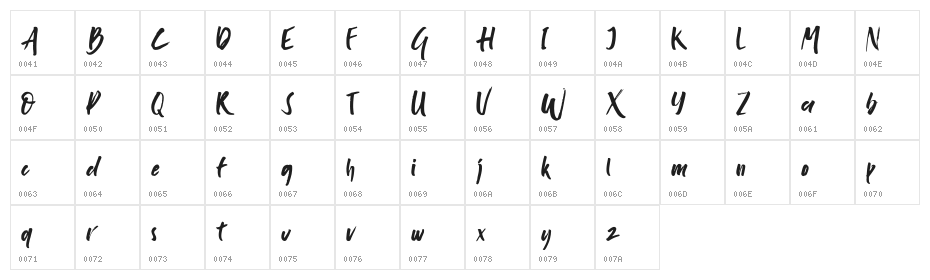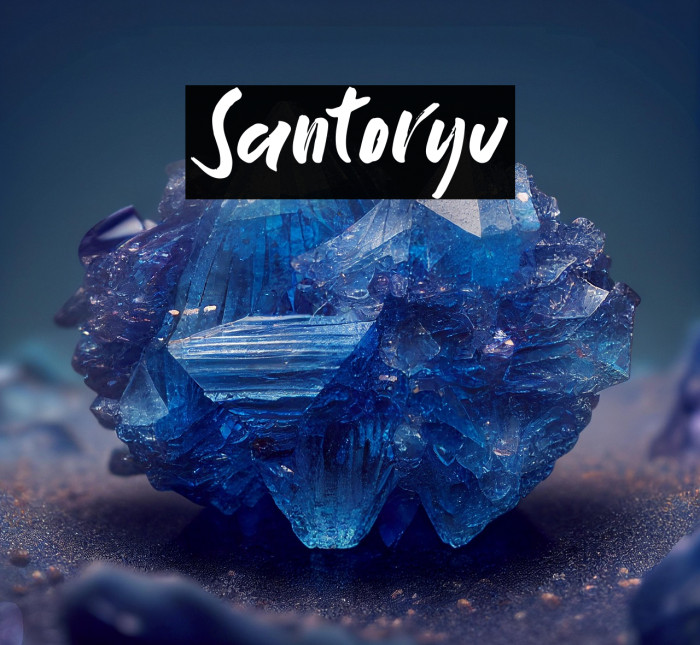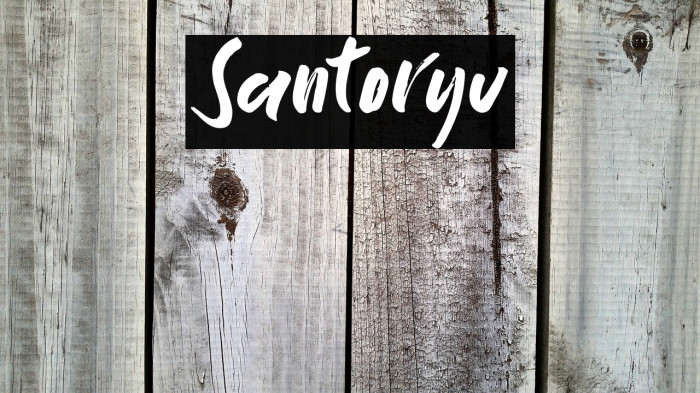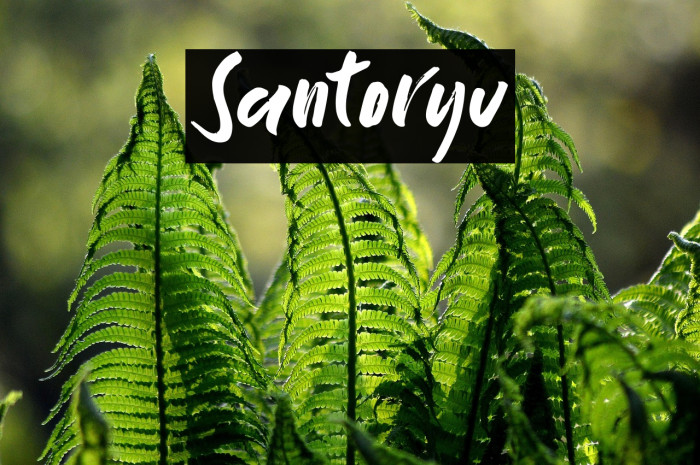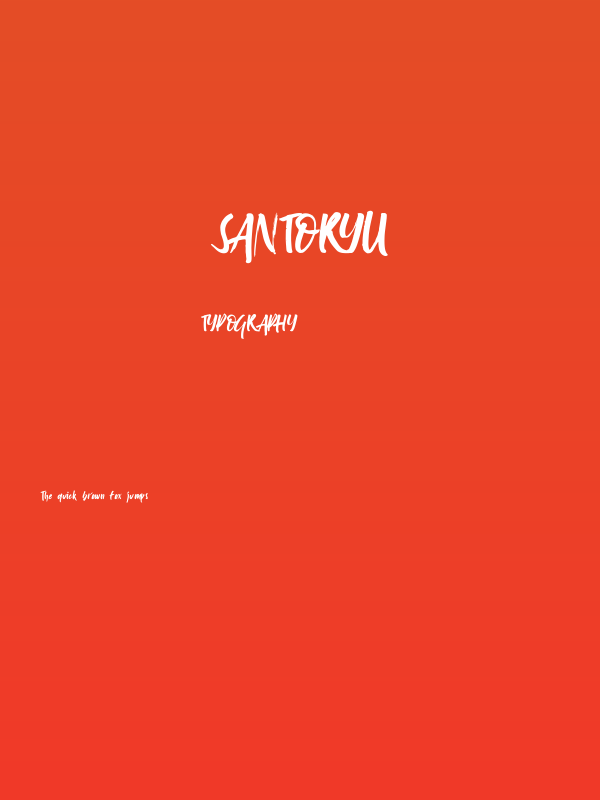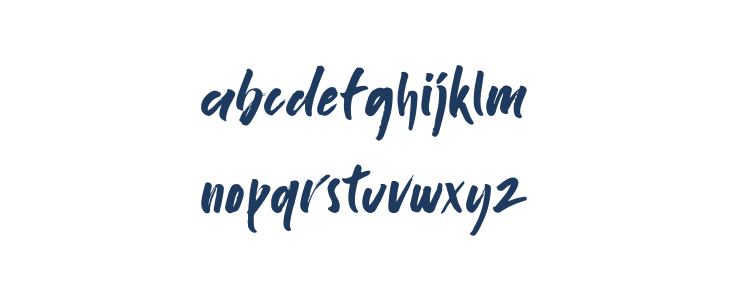
Santoryu Font
Santoryu Description
This font exhibits a dynamic and energetic brush script style, characterized by its bold and expressive strokes. The letters are crafted with a natural, hand-painted appearance, giving it a lively and artistic feel. The uppercase and lowercase letters maintain a consistent flow, with some characters featuring elongated strokes that add to its dramatic flair. The overall design is both modern and playful, making it suitable for projects that require a personal and creative touch. The font's unique style is ideal for capturing attention and conveying a sense of movement and spontaneity.